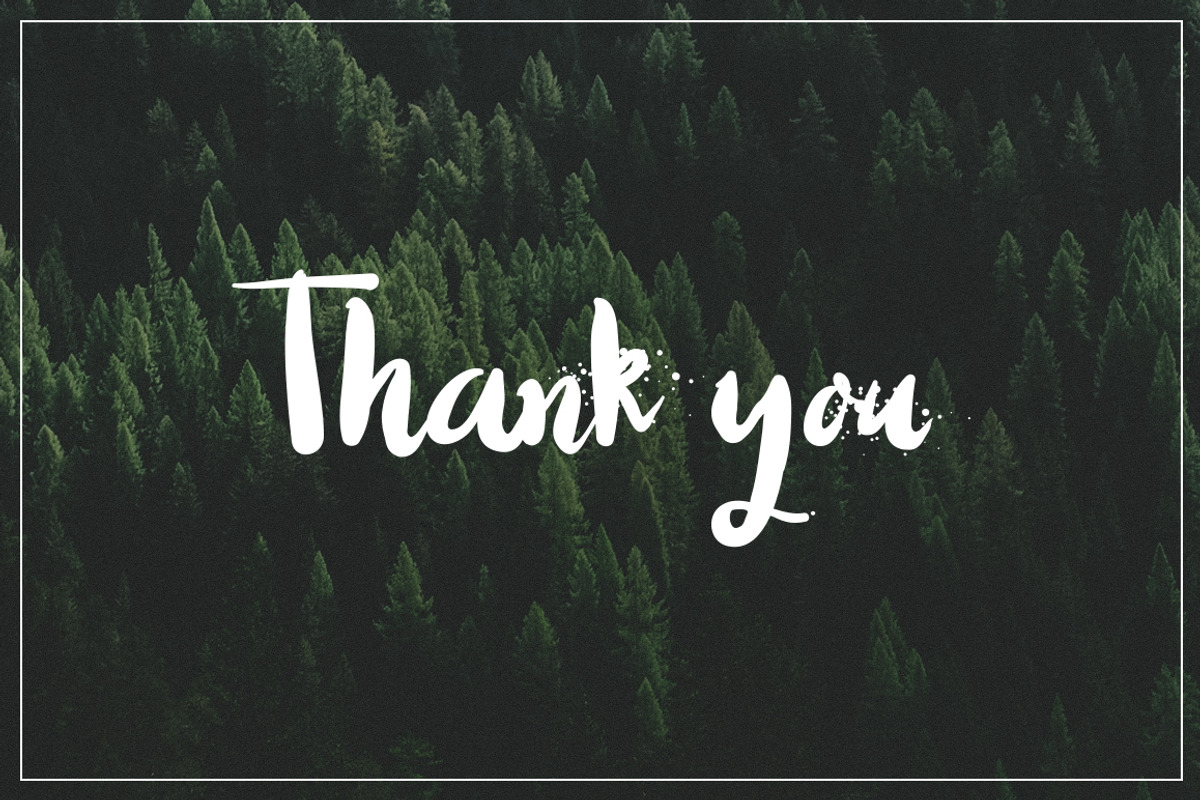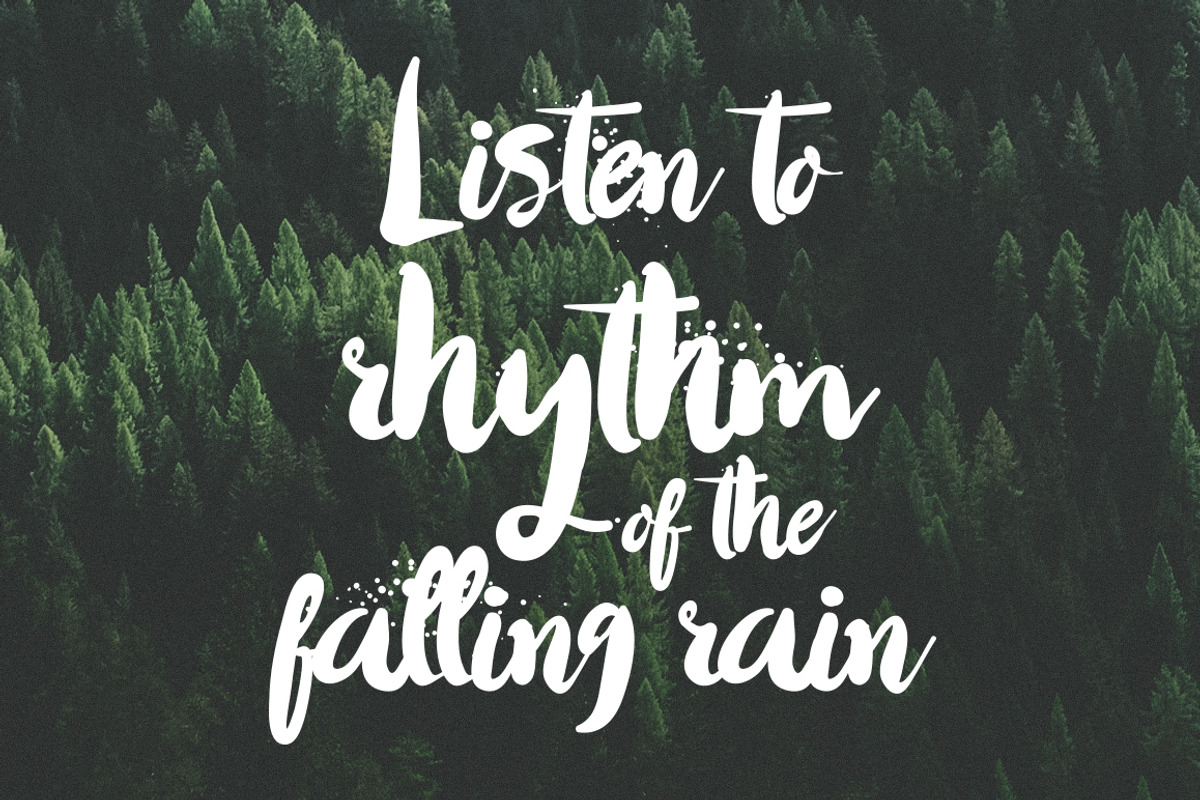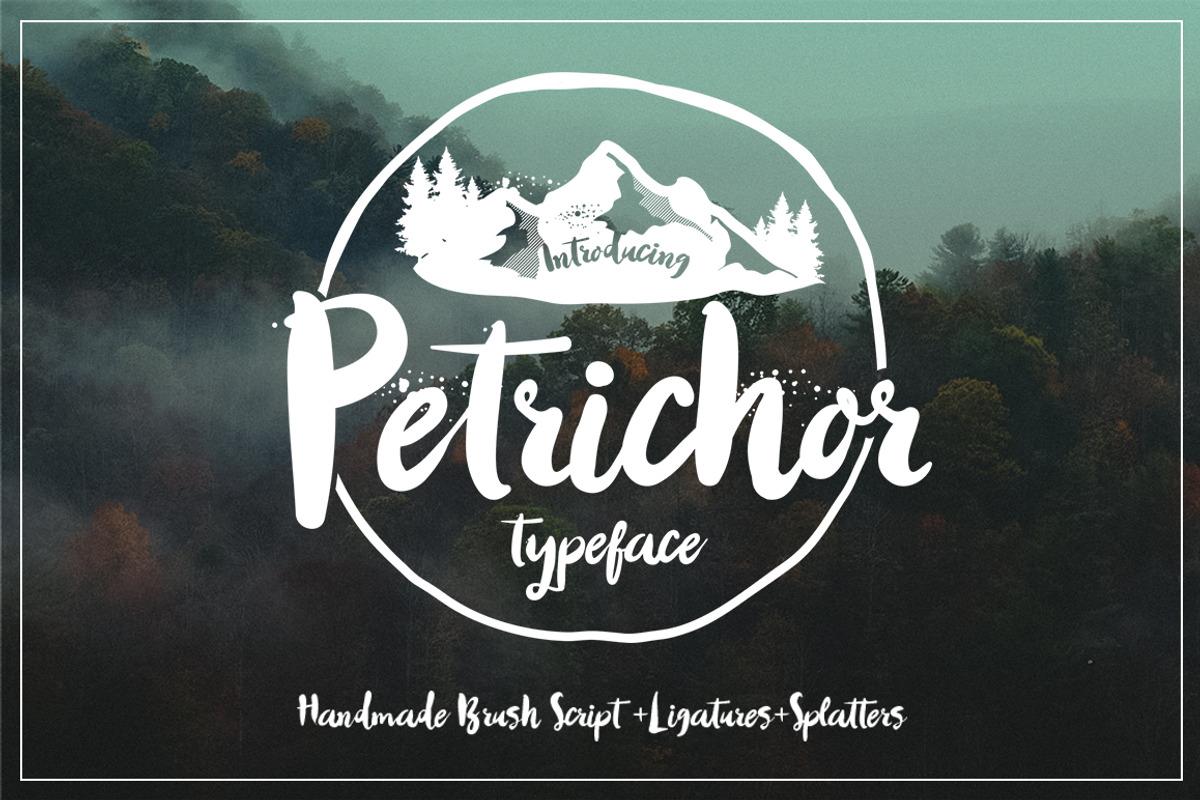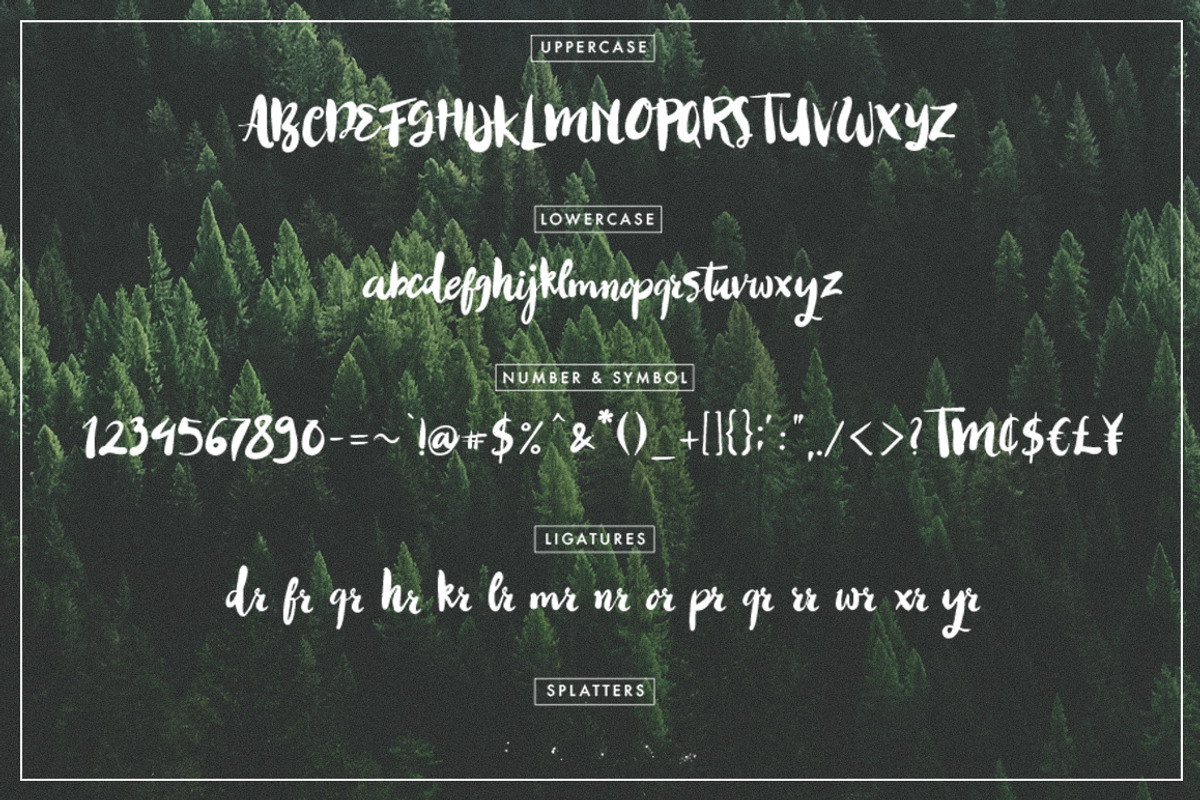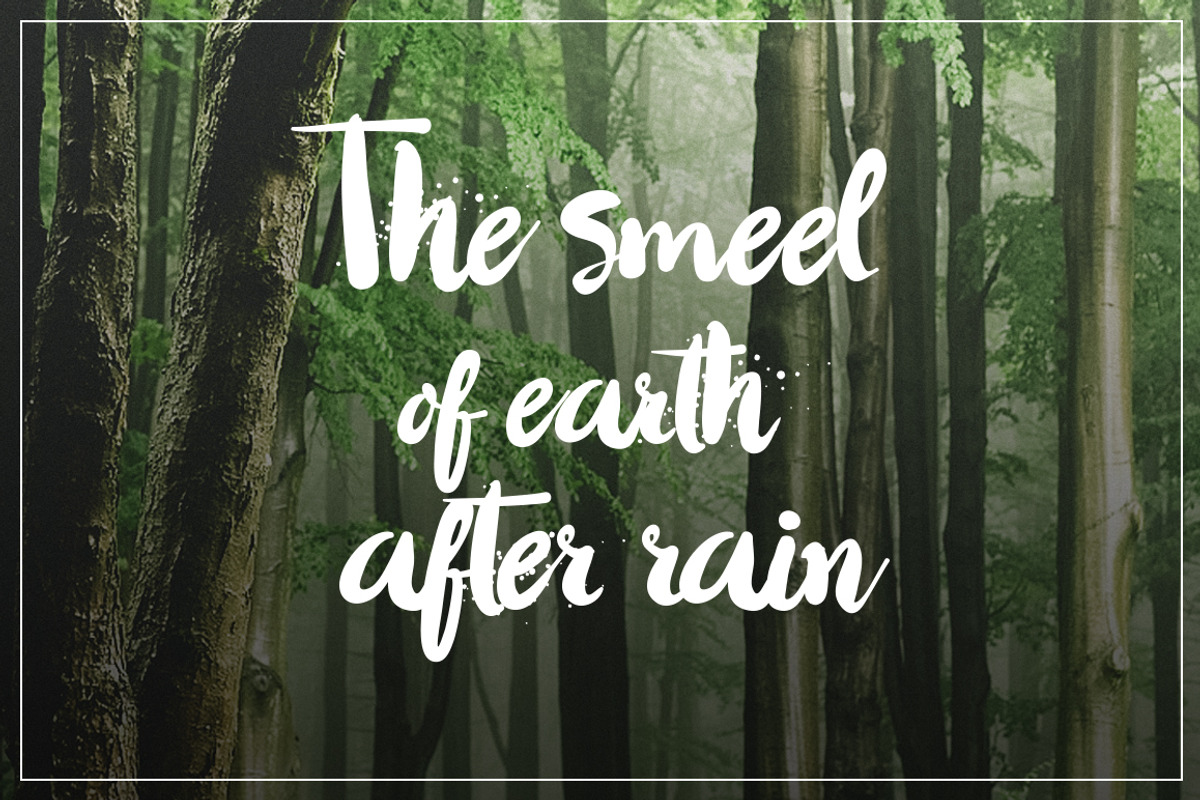
Petrichor Typeface
Petrichor Typeface by dreamwaves is a font selected for branding, posters, packaging, typography.
- Petrichor includes lowercase, uppercase, punctuation, numeral, ligatures, and splatter brush.
Why Petrichor Typeface is worth a look
Petrichor Typeface by dreamwaves fits naturally into Branding, posters, packaging, typography.